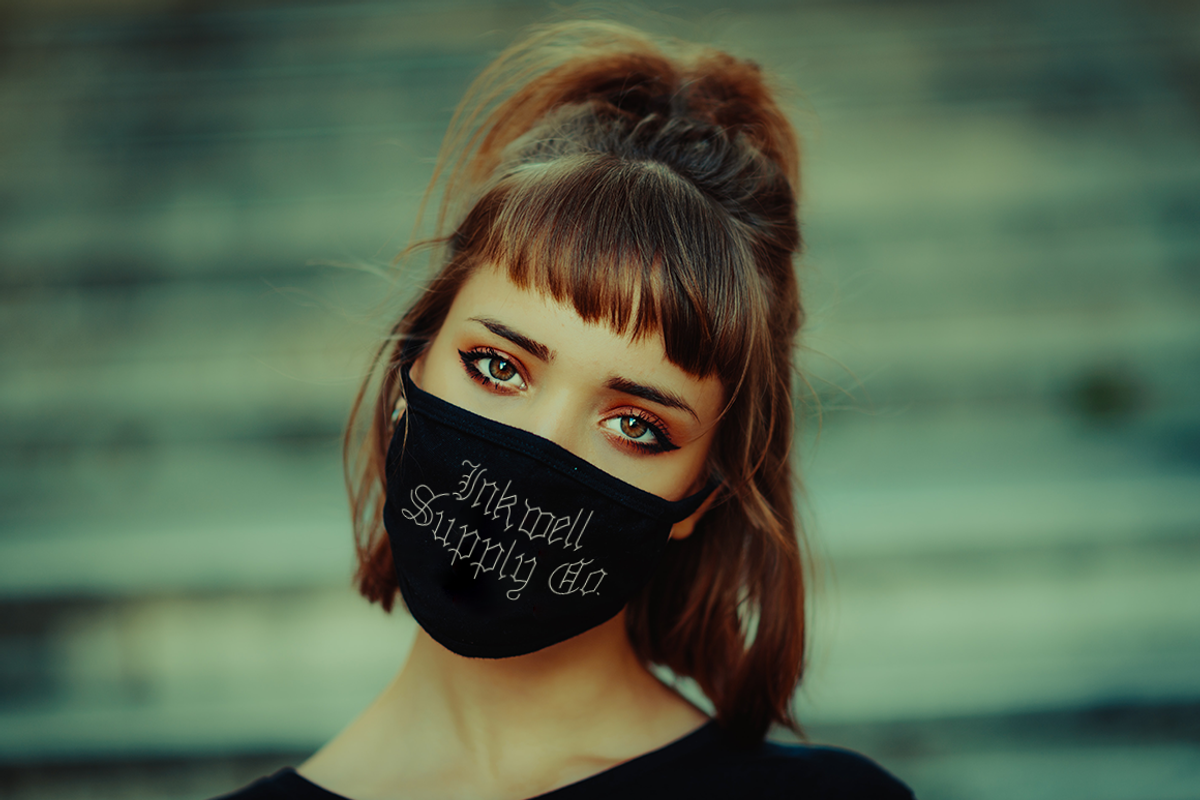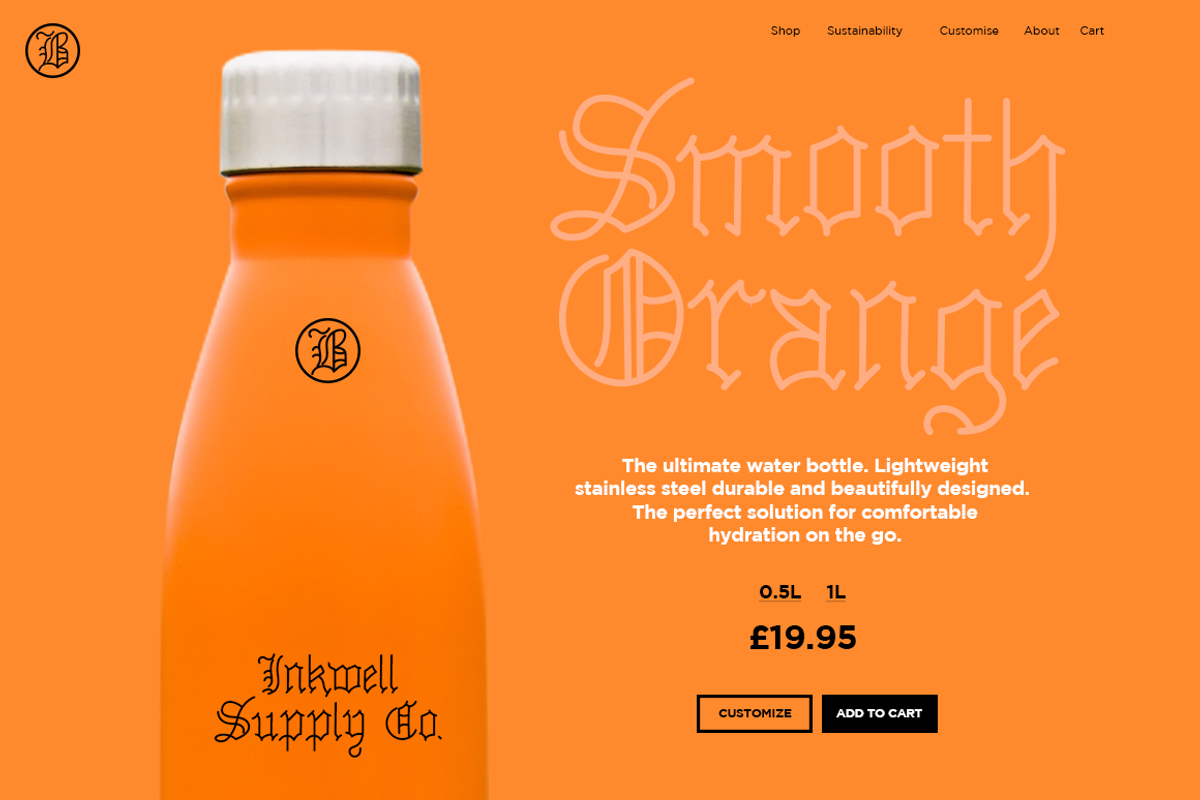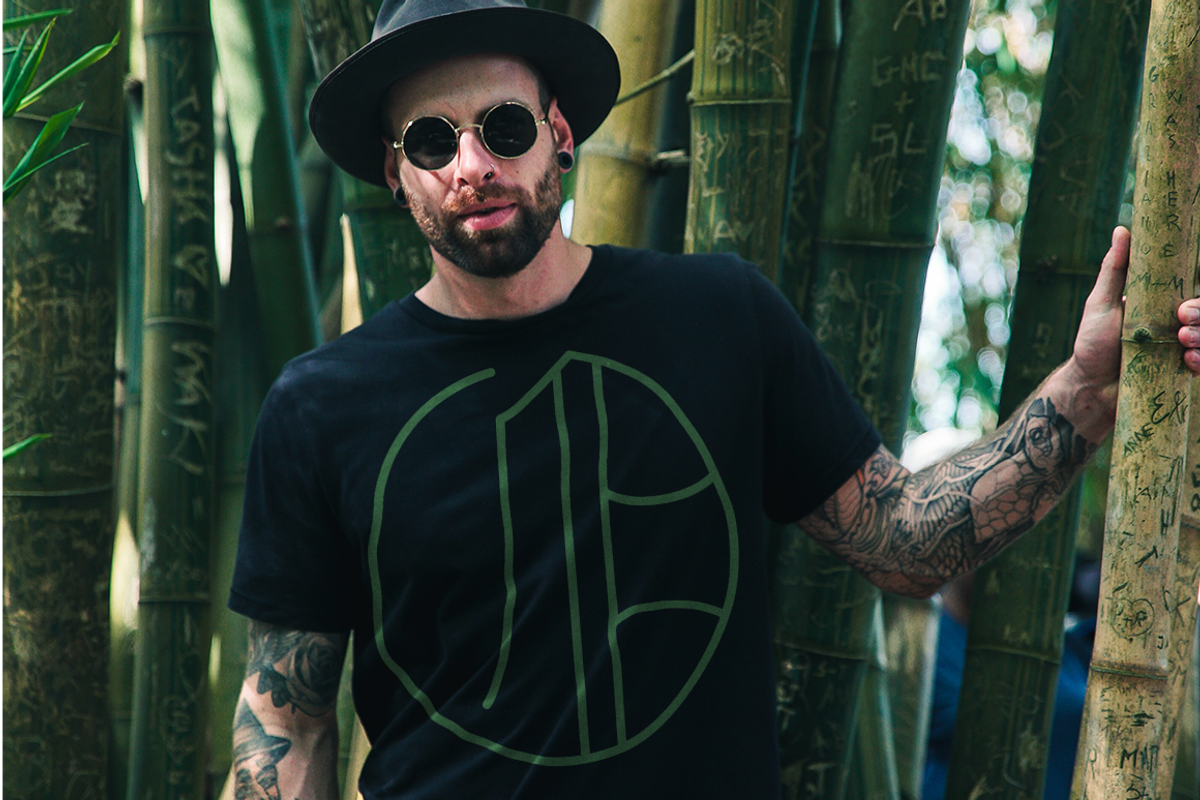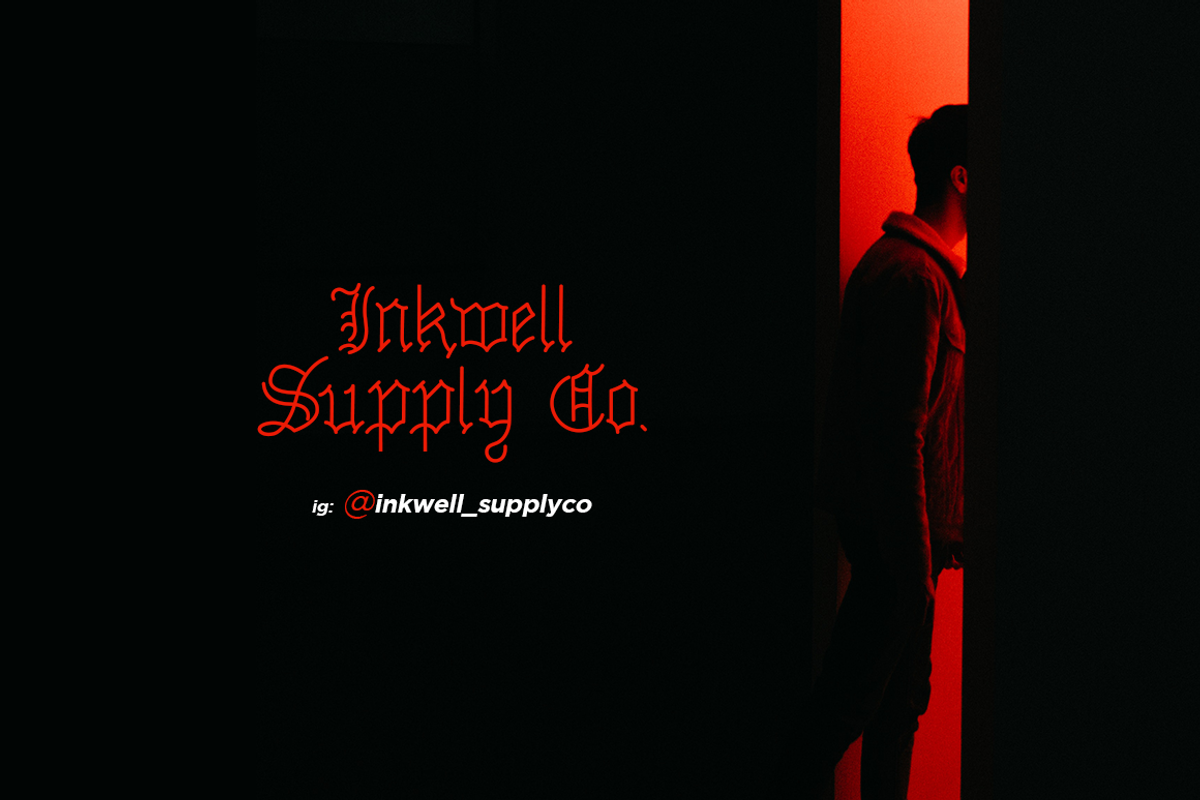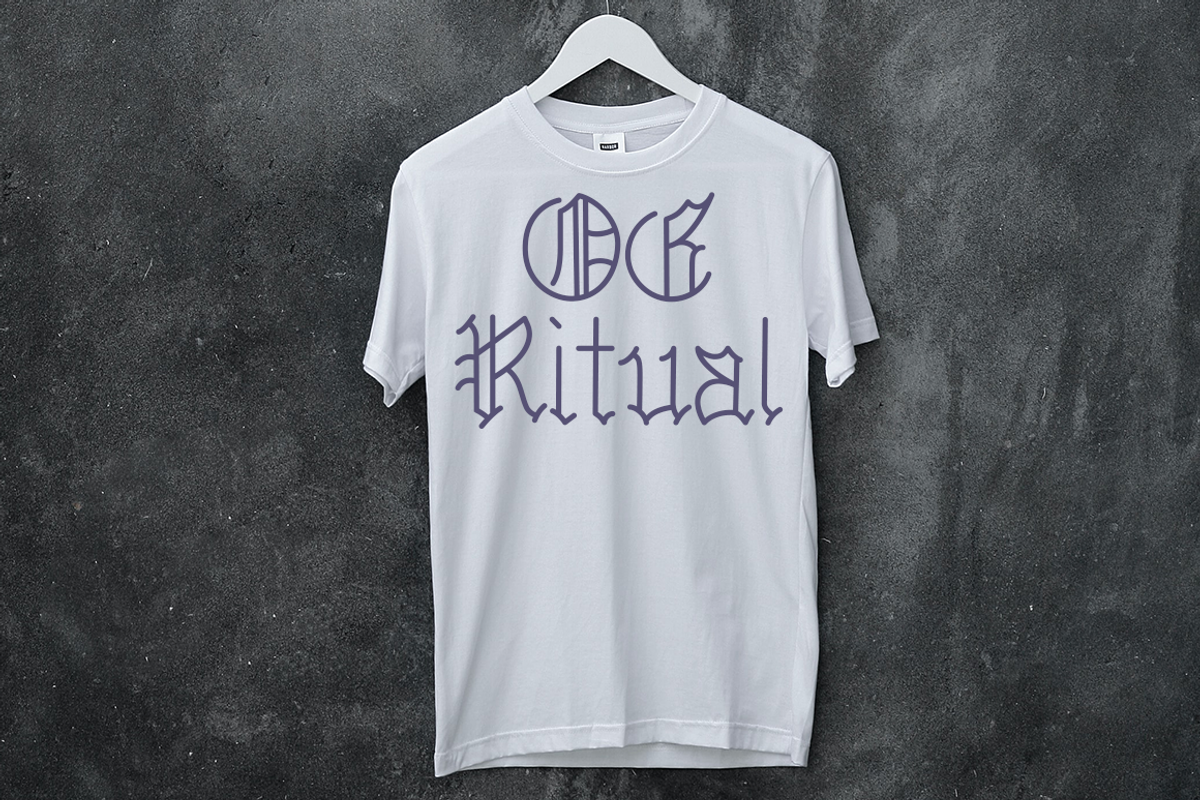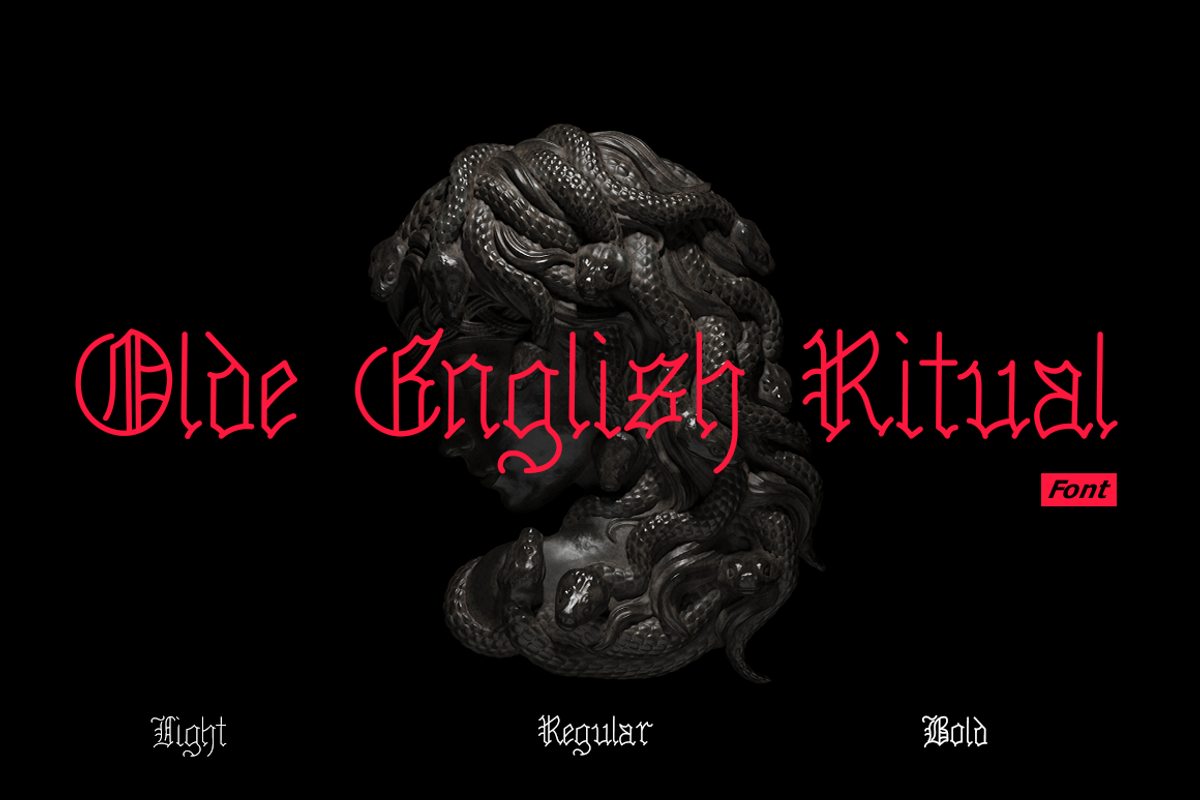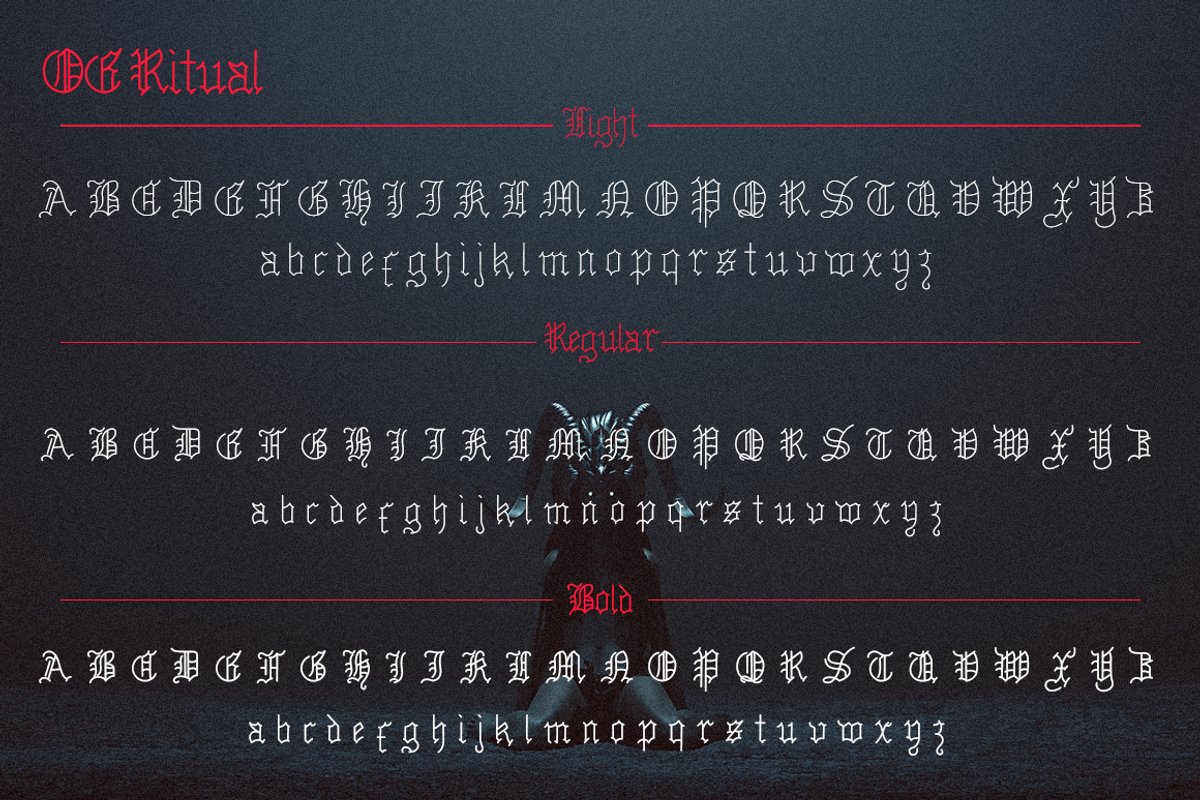
Olde English Ritual
OE-Ritual (Olde English Ritual) Is a modern font inspired by Old English lettering.
The idea came about while exploring a letterpress studio with hundreds of intricately designed typefaces and comparing them to modern fonts.
This 1st iteration of OE Ritual aims to strip down an old English typeface to its most basic form.
There are 3 Line weights Light, Regular & Bold.